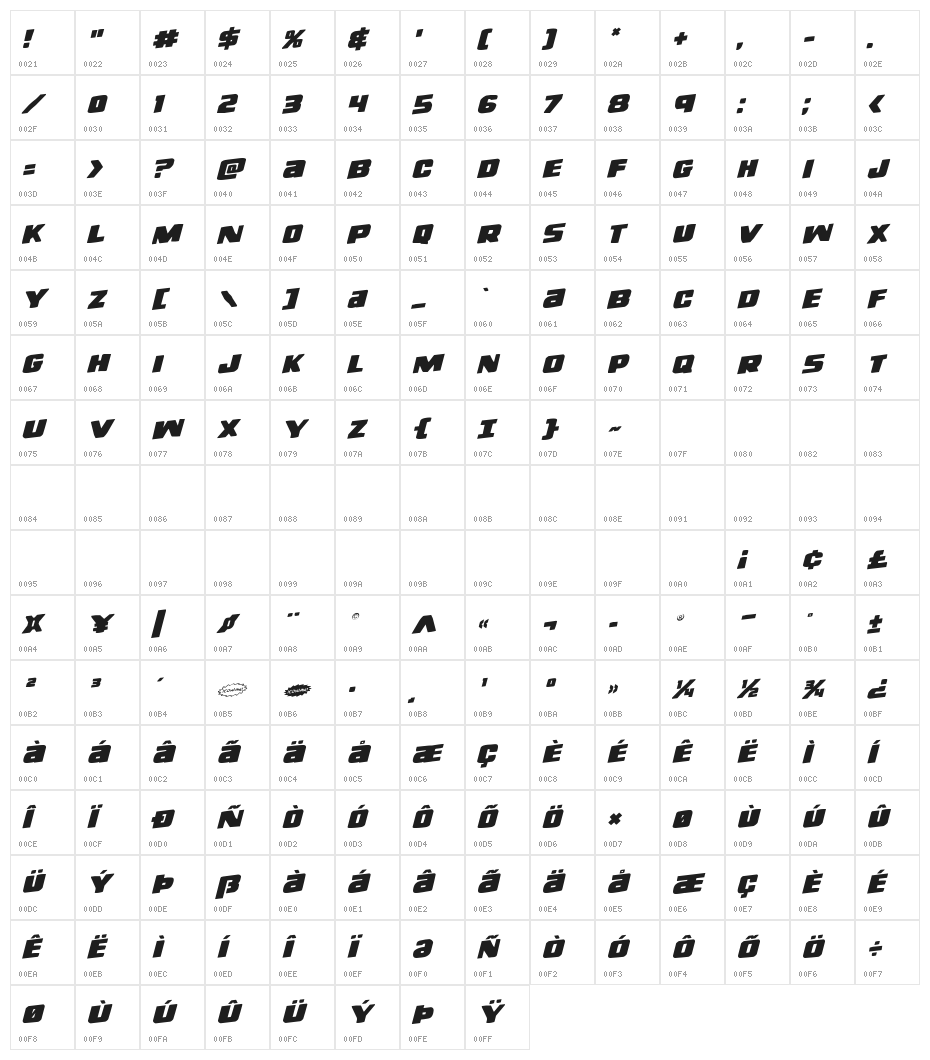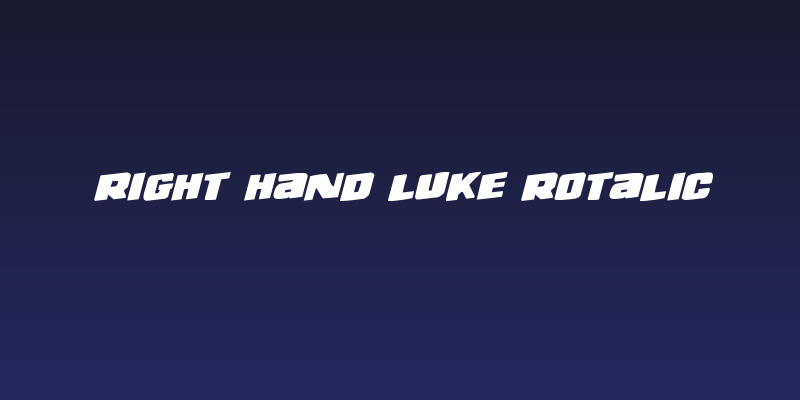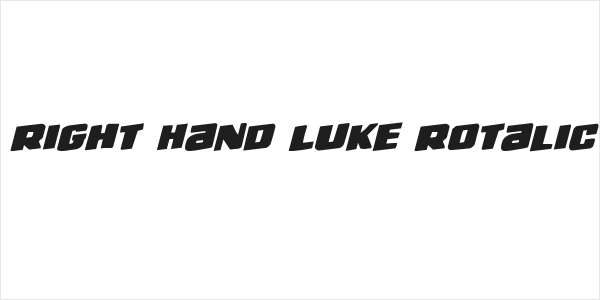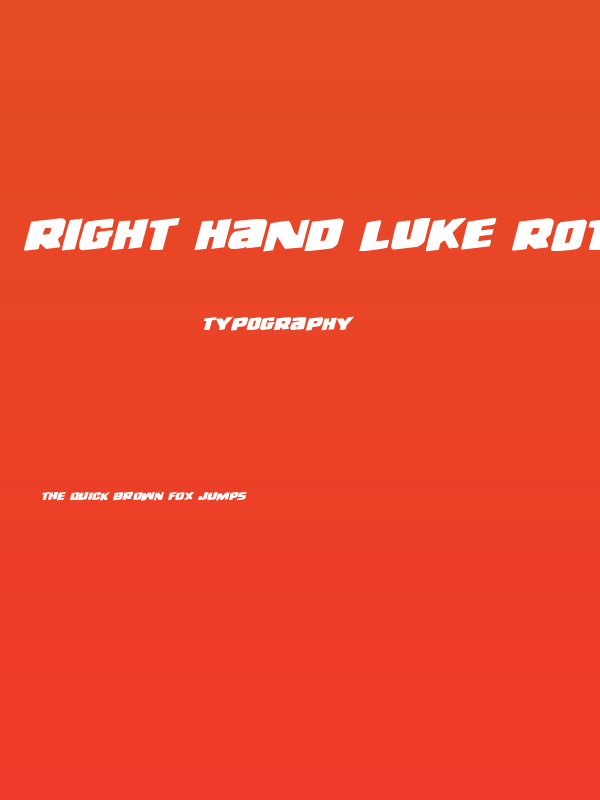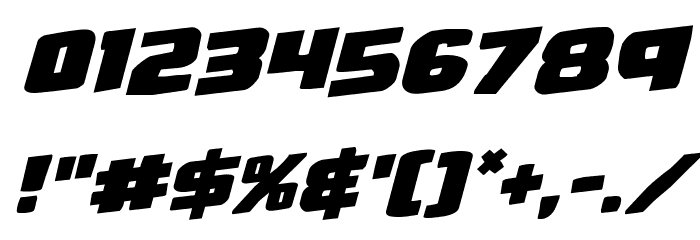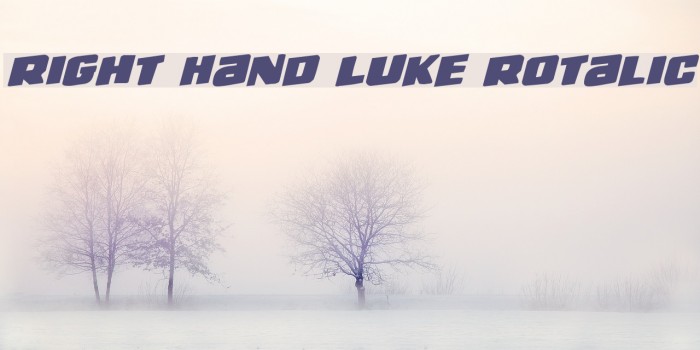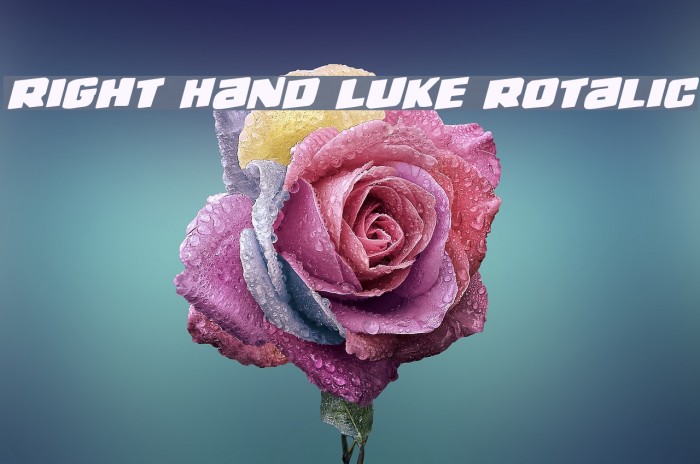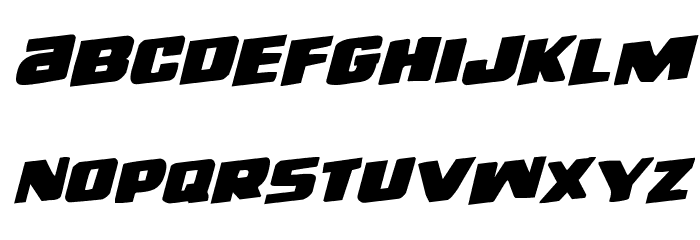
Right Hand Luke Rotalic Font
Right Hand Luke Rotalic Description
This font features a bold, italicized style with a strong, dynamic presence. The characters are slanted to the right, giving a sense of motion and energy. The strokes are thick and consistent, providing a robust appearance. The uppercase and lowercase letters maintain a uniform width, contributing to a cohesive look. The numbers and special characters follow the same bold and italicized design, ensuring consistency across all elements. This font is ideal for projects that require a strong visual impact.
| Proposed Projects | Suitable for sports branding, dynamic posters, and eye-catching headlines. |